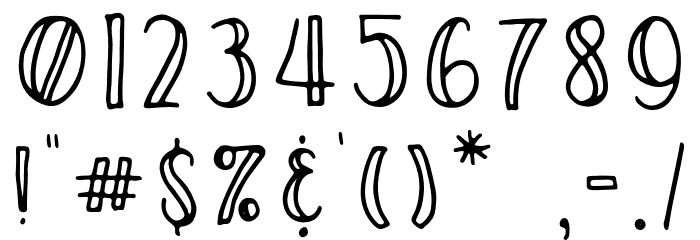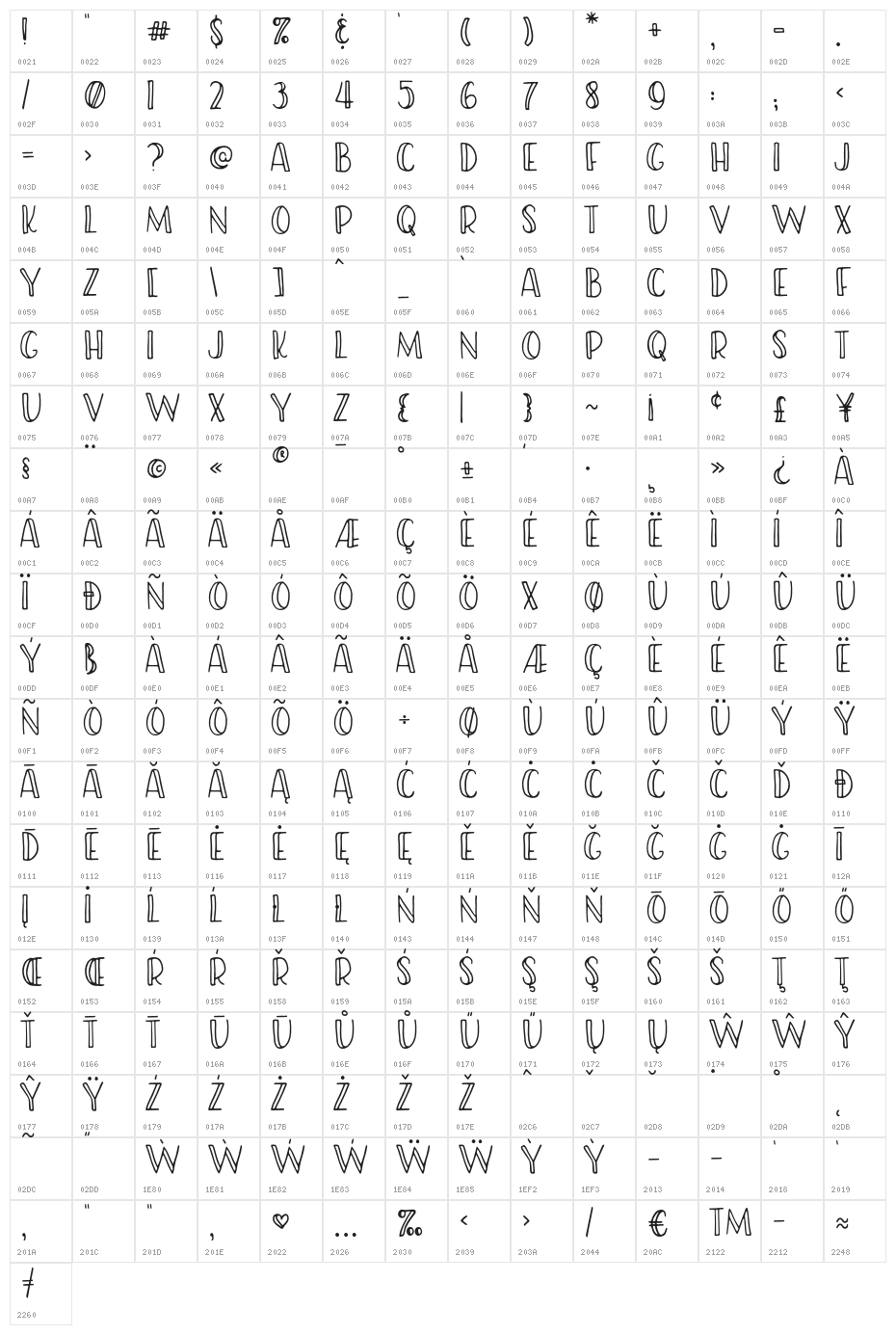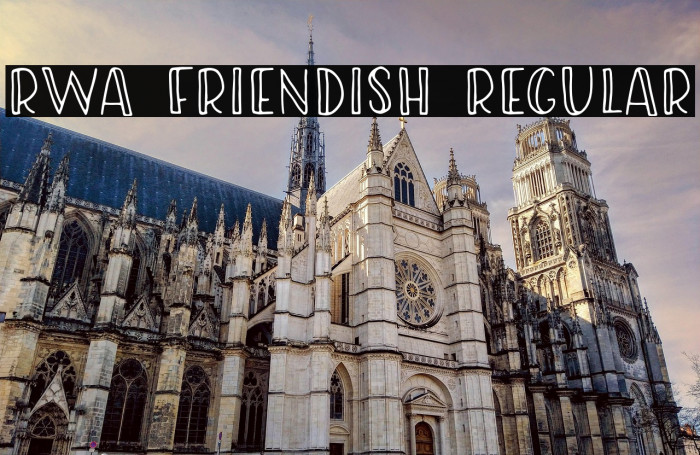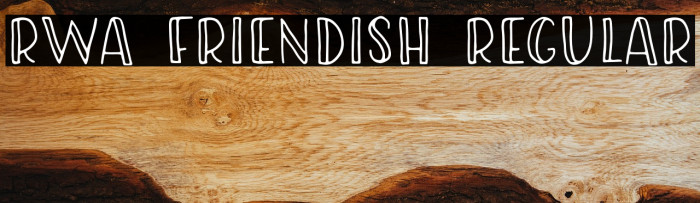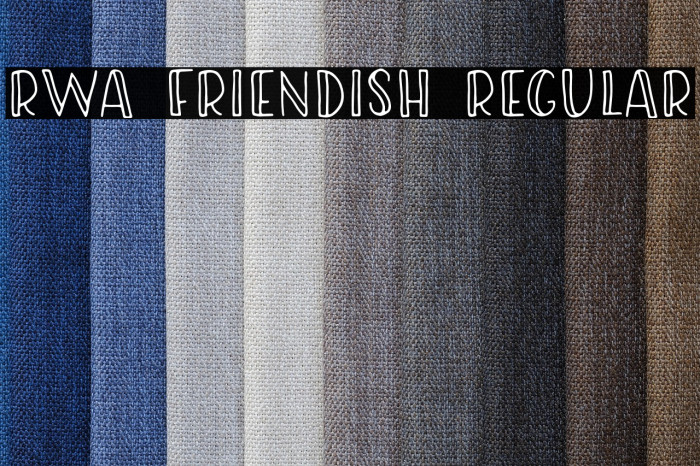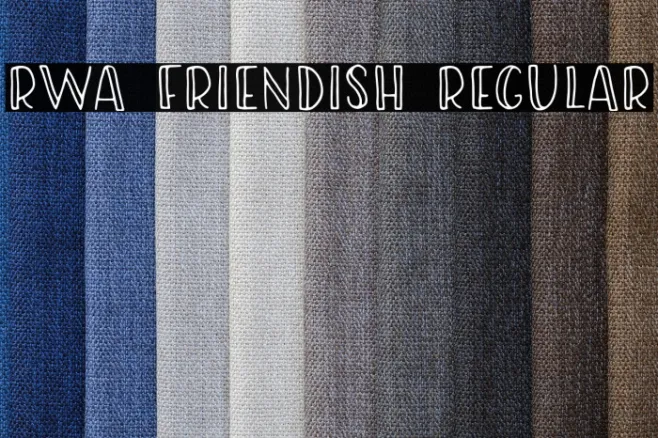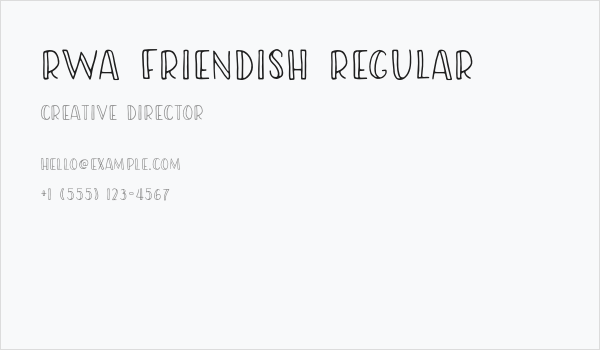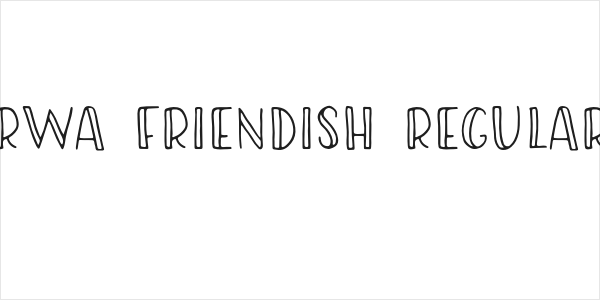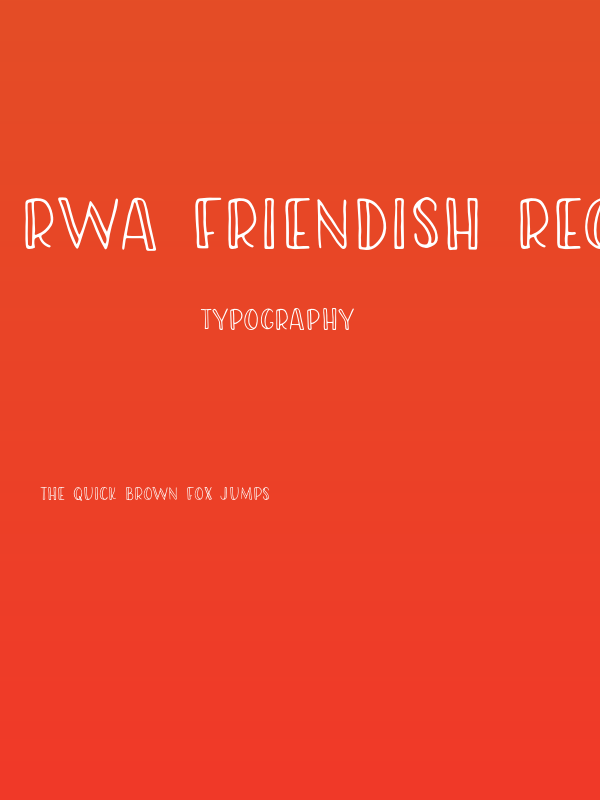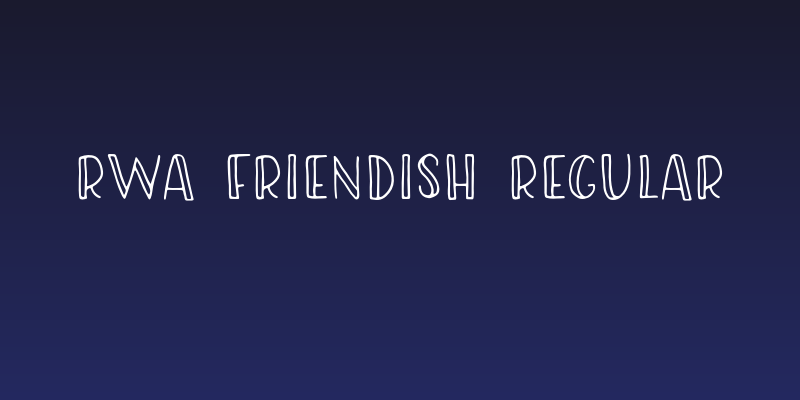
This playful and whimsical font features a hand-drawn style with a casual, friendly appearance. The letters are slightly irregular, giving it a unique and approachable feel. The strokes are consistent in width, with rounded edges that add to its charm. The font includes both uppercase and lowercase letters, as well as numbers and a variety of special characters. Its informal style makes it perfect for projects that require a personal touch or a fun, lighthearted vibe.
Use CaseLogos, Headlines, Informal Text
Proposed ProjectsIdeal for children's books, greeting cards, playful branding, and casual invitations.